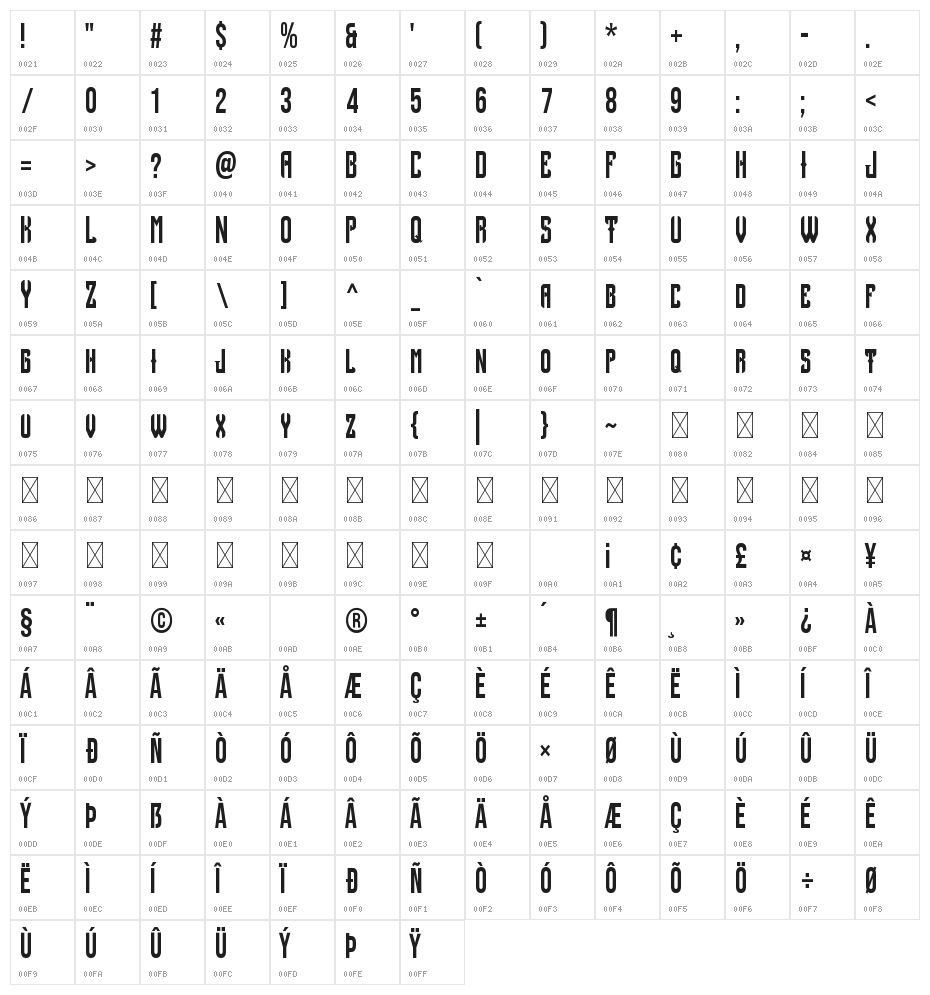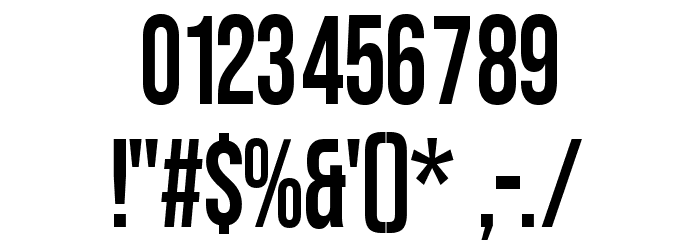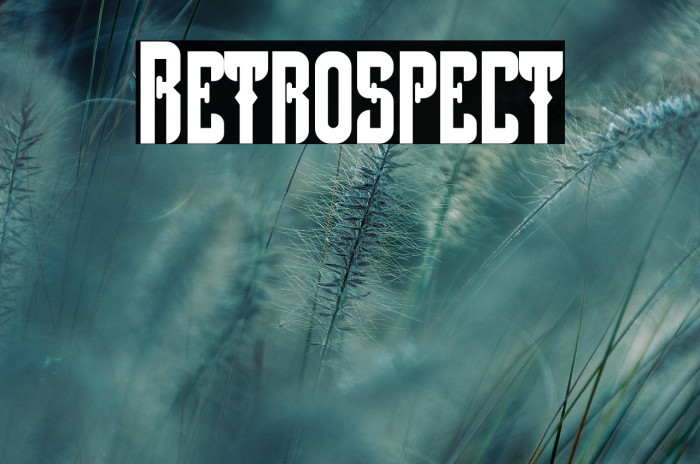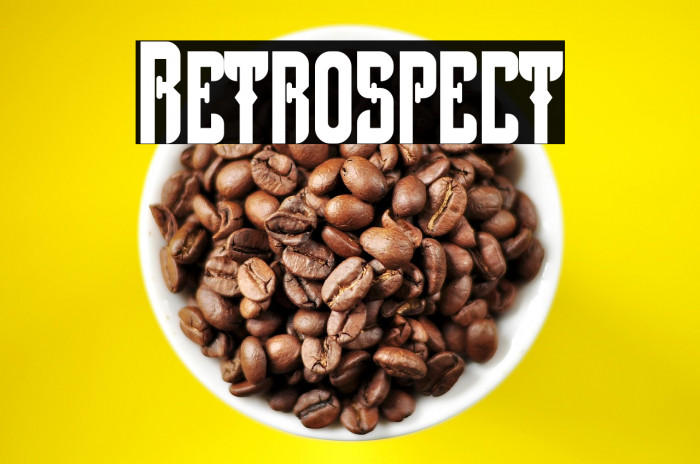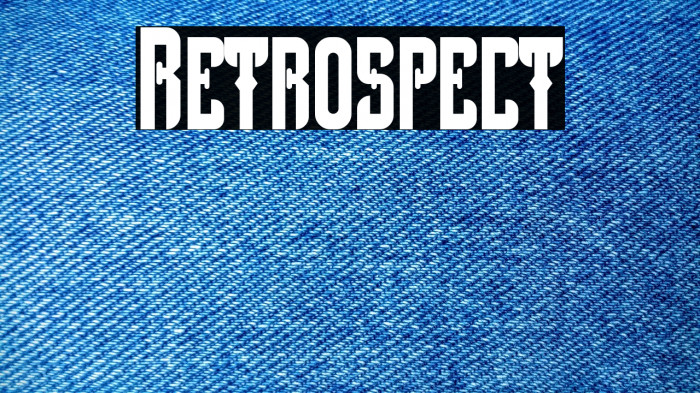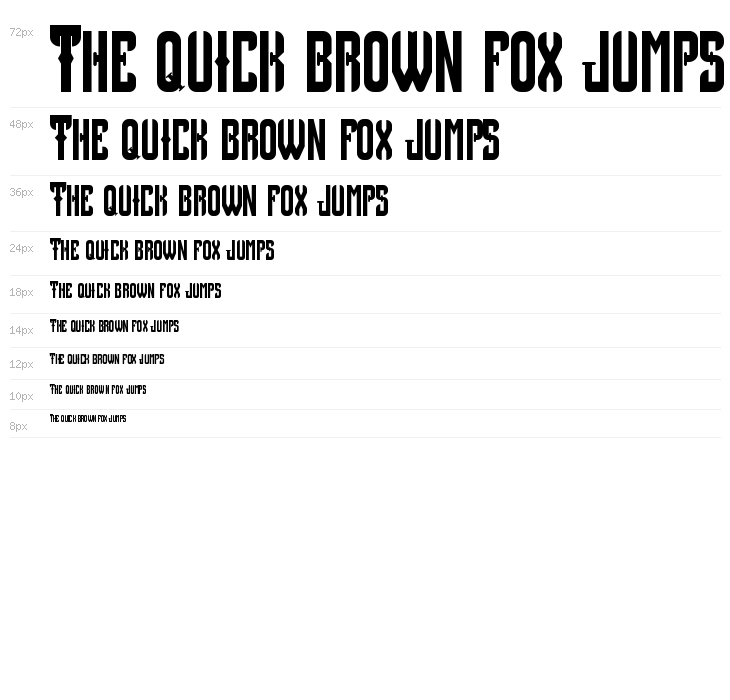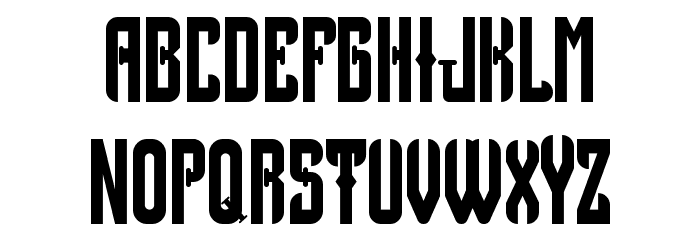
Retrospect Font
Retrospect Description
This font features a bold and striking design with a unique blend of geometric shapes and sharp angles. The uppercase letters are characterized by their tall, narrow forms with distinct cutouts and angular serifs, giving them a futuristic and edgy appearance. The lowercase letters maintain the same angular style, ensuring consistency throughout the typeface. Numbers are equally bold and follow the same geometric pattern, making them stand out prominently. Special characters are designed to match the overall aesthetic, with sharp lines and angular details. This font's distinct style makes it ideal for projects that require a modern and impactful look.
| Proposed Projects | Ideal for branding, posters, album covers, and any design project that requires a modern and bold statement. |